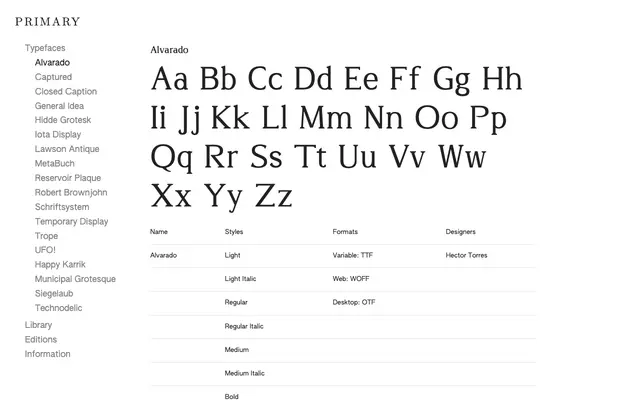
Alvarado
An open-source variable typeface drawn from the hand-lettered and printed signage of Alvarado Street through the Westlake and Pico-Union neighbourhoods of Los Angeles.
Designed by Hector Torres and released under the Open Font Licence, Alvarado takes its letterforms from vernacular signage found along one of the densest urban corridors in the United States. The family runs across four weights from Light to Bold, each with an italic, and is distributed as a variable TTF alongside desktop OTF and web WOFF formats. With 218 glyphs including extended Latin characters, lining figures and punctuation, it covers a broad range of everyday typographic tasks.
Derived from hand-painted and printed signage observed on a specific Los Angeles street, giving it a vernacular character distinct from conventional grotesque or humanist classifications.